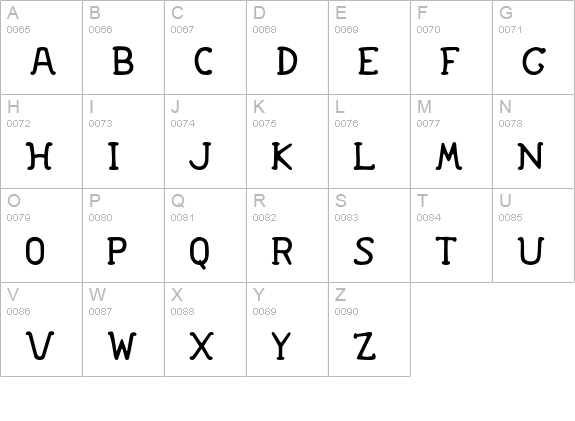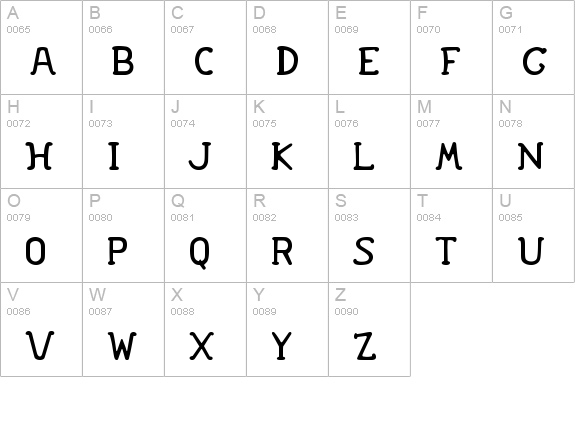
FontSoupCatalan-Regular Font Details
FontSoupCatalan-Regular is the standard, neutral variant in the FontSoupCatalan typeface family \xE2\x80\x94 well suited to general body text, paragraphs, and standard typographic work.
FontSoupCatalan-Regular is a versatile and elegant font that exudes sophistication and charm. With its clean lines and classic design, this font is perfect for a wide range of projects, from branding to editorial design. The timeless appeal of FontSoupCatalan-Regular makes it a go-to choice for designers looking to add a touch of class to their work. The best part? FontSoupCatalan-Regular is available for free download at FontsMarket.com. This means you can easily add this beautiful font to your collection without any cost. Whether you're working on a personal project or a professional assignment, FontSoupCatalan-Regular is sure to elevate your design with its unique style and versatility. Don't miss out on the opportunity to enhance your creative projects with FontSoupCatalan-Regular. Download it for free today and experience the beauty and functionality of this stunning font.